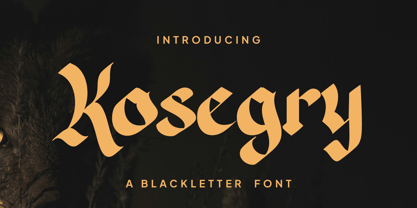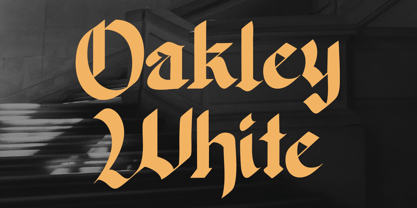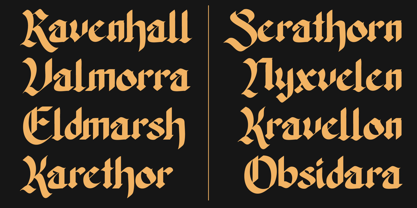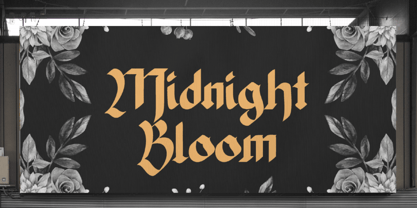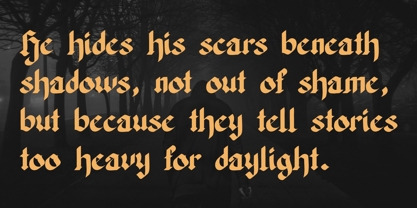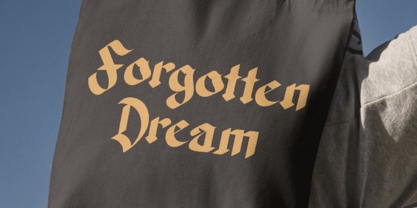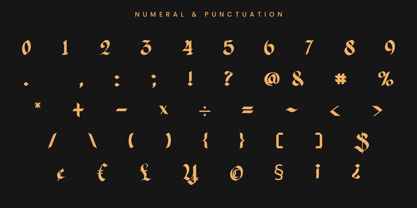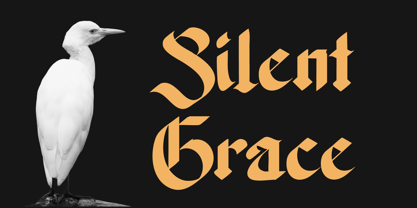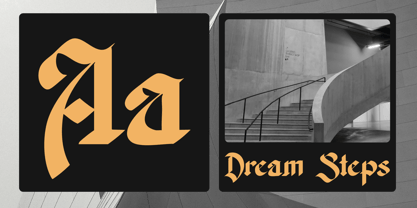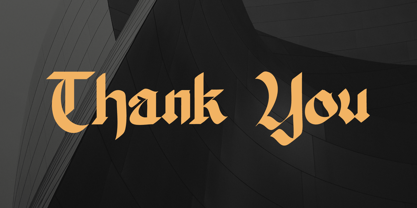
Kosegry
by Rvandtype
The Kosegry Font Family was designed by Randi Irvan and published by Rvandtype. Kosegry contains 1 styles. More about this family
Introducing Kosegry, a blackletter font that seamlessly merges the sophistication of gothic grace with raw modernity. Painstakingly crafted, every letter features distinct sharp characteristics and emphatic outlines, yielding a visually stunning and impactful aesthetic. This font is an ideal choice for projects seeking a robust, dark, and enigmatic presence, including captivating movie posters, intense metal band insignia, alluring fantasy book covers, and gothic clothing design. Kosegry masterfully carries forth the enduring allure of medieval lettering into the present day, adding a striking and memorable personality to your designs. With a variety of weights and styles, Kosegry is versatile enough for branding, editorial use, and digital applications, ensuring your message stands out with elegance and boldness.
Designers: Randi Irvan
Foundry: Rvandtype